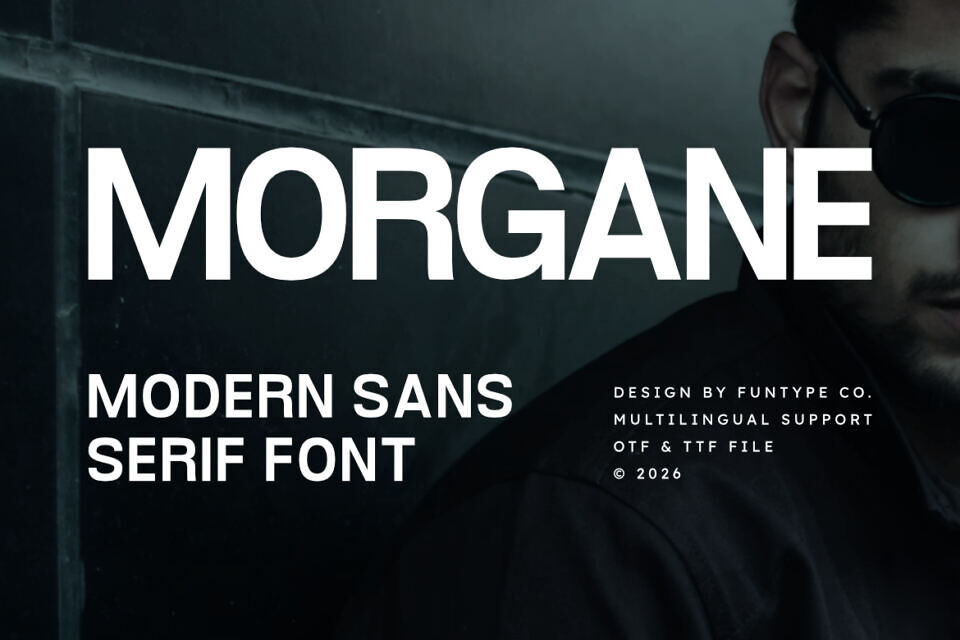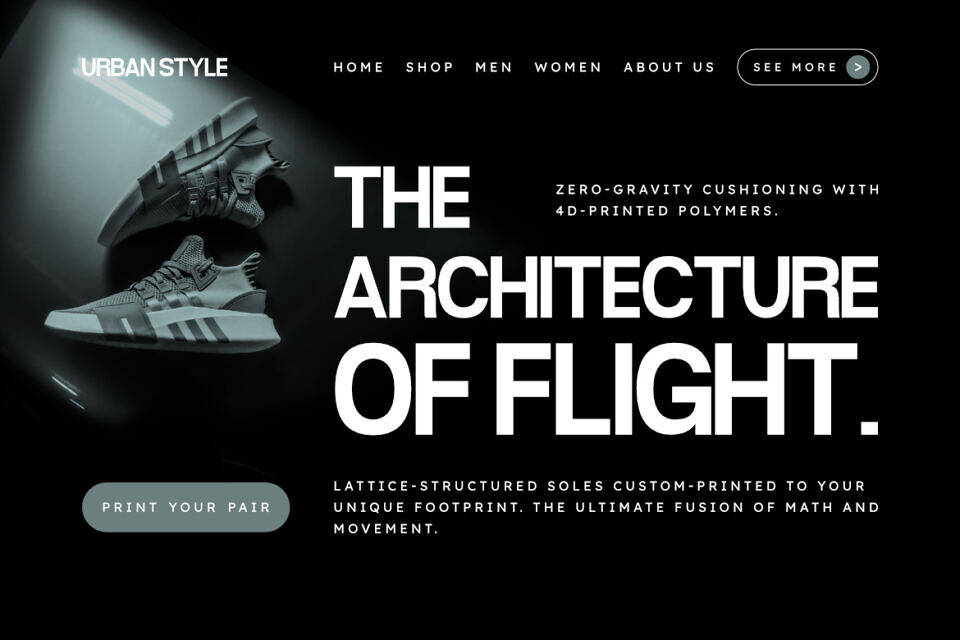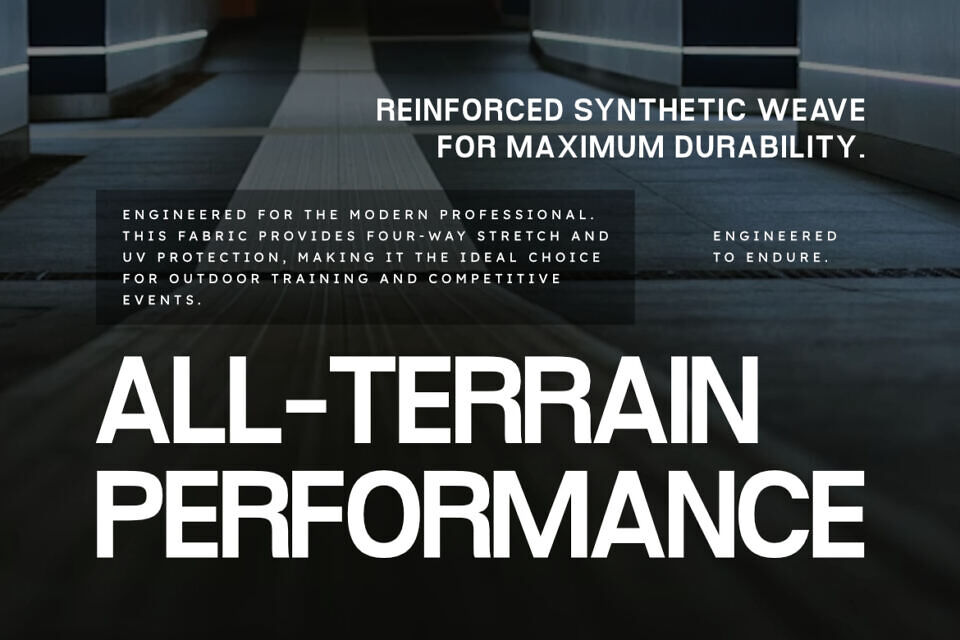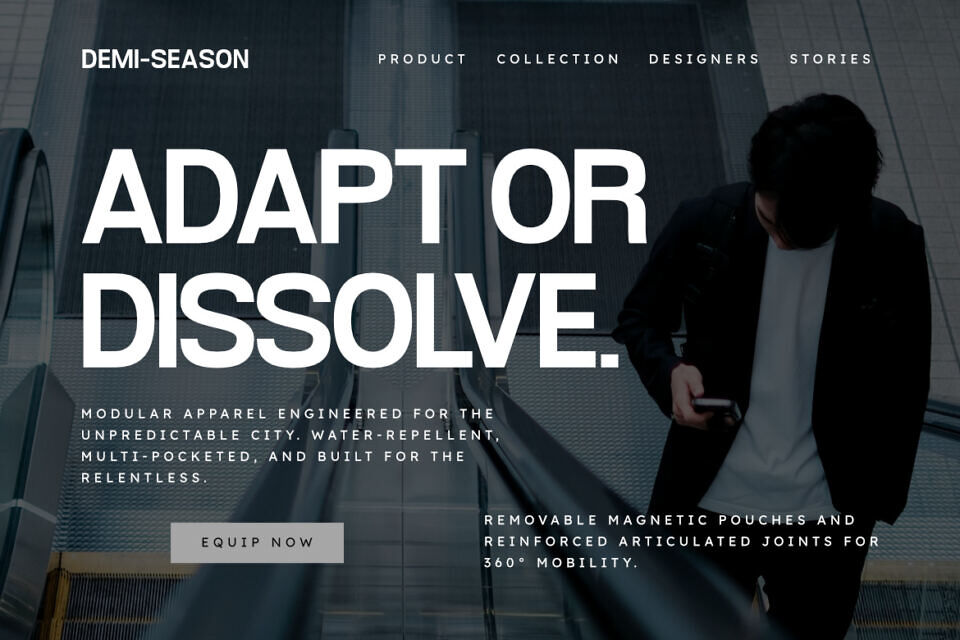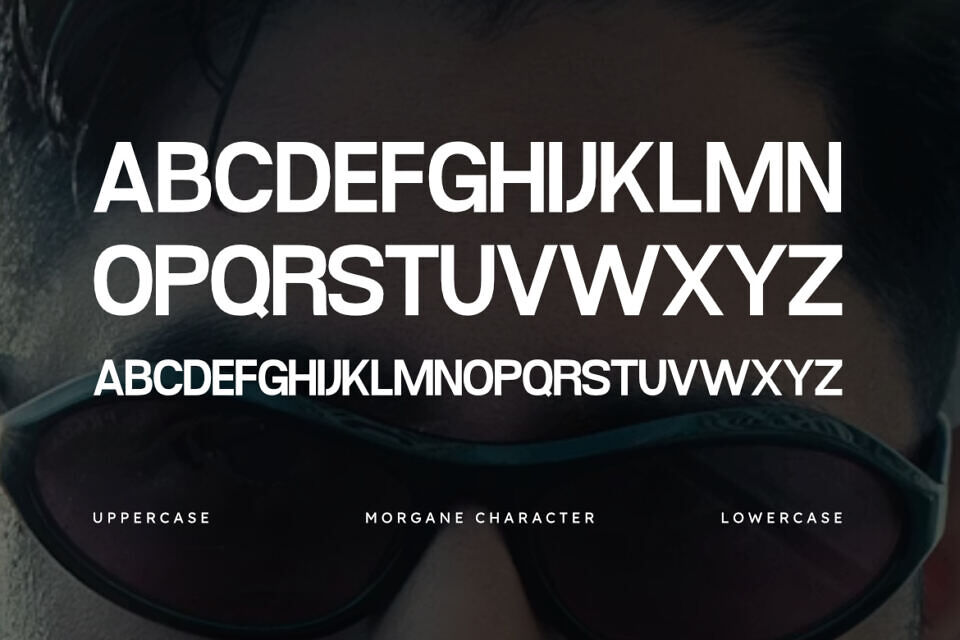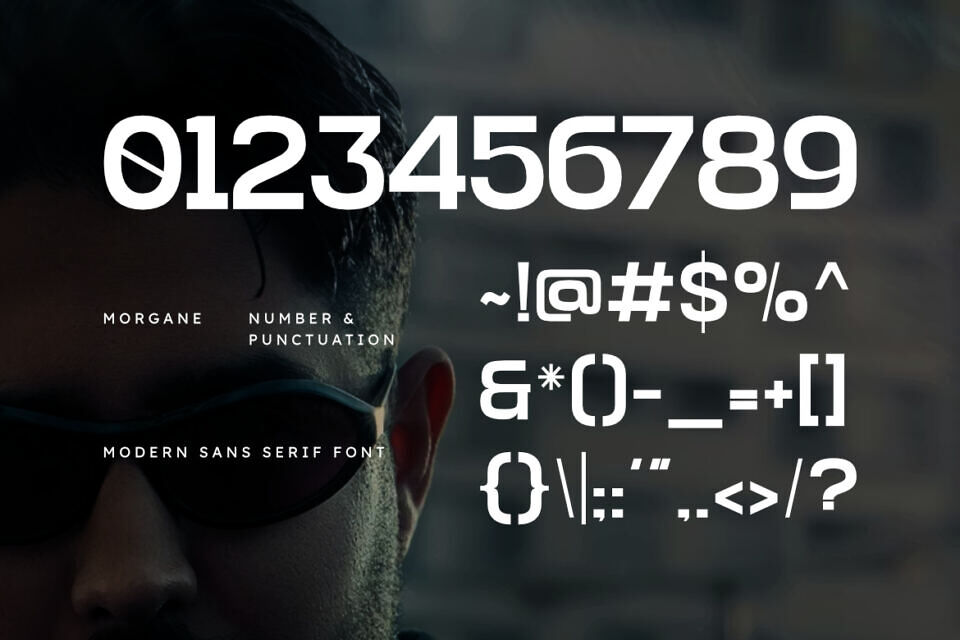
Morgane Font
Morgane is a sophisticated and powerful modern sans serif font, thoughtfully designed to capture the essence of high-end impact and contemporary storytelling. With its clean, balanced geometric lines and solid weights, Morgane offers a professional aesthetic that brings a touch of commanding authority to any creative project.
Whether you are crafting a striking modern corporate identity, a sleek fashion logo, or bold editorial layouts, Morgane provides a seamless blend of contemporary edge and digital power.